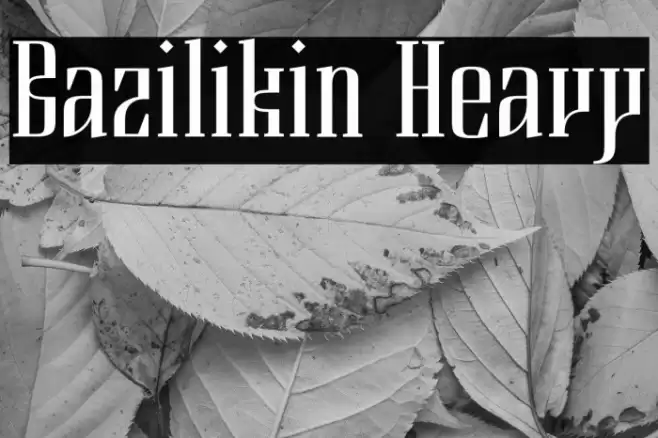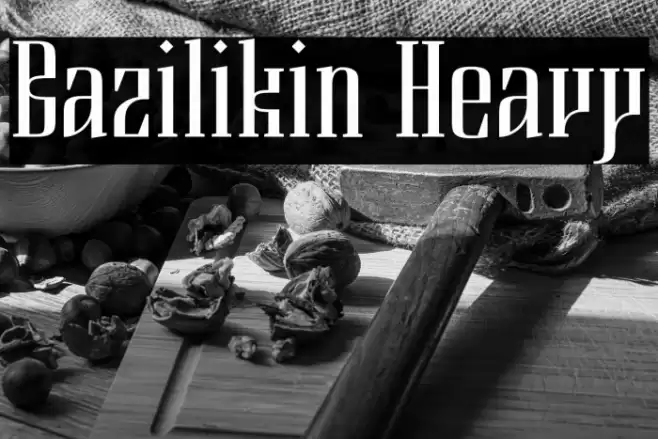
Bazilikin Heavy Font
Bazilikin Heavy Description
This font features a bold and striking design with elongated vertical lines and sharp serifs, giving it a distinct and authoritative presence. The uppercase letters are tall and narrow, while the lowercase letters maintain a consistent height, creating a cohesive look. The numerals are similarly styled, ensuring uniformity across all characters. Special characters are designed with the same attention to detail, making them stand out while remaining harmonious with the rest of the font. The overall aesthetic is both modern and classic, suitable for making a strong visual impact.
A bold, elongated serif font with a modern yet classic style from Regular fonts.
- Proposed Projects: Ideal for headlines, posters, branding, and editorial design where a strong and impactful font is needed.
- Character Spacing: Tight